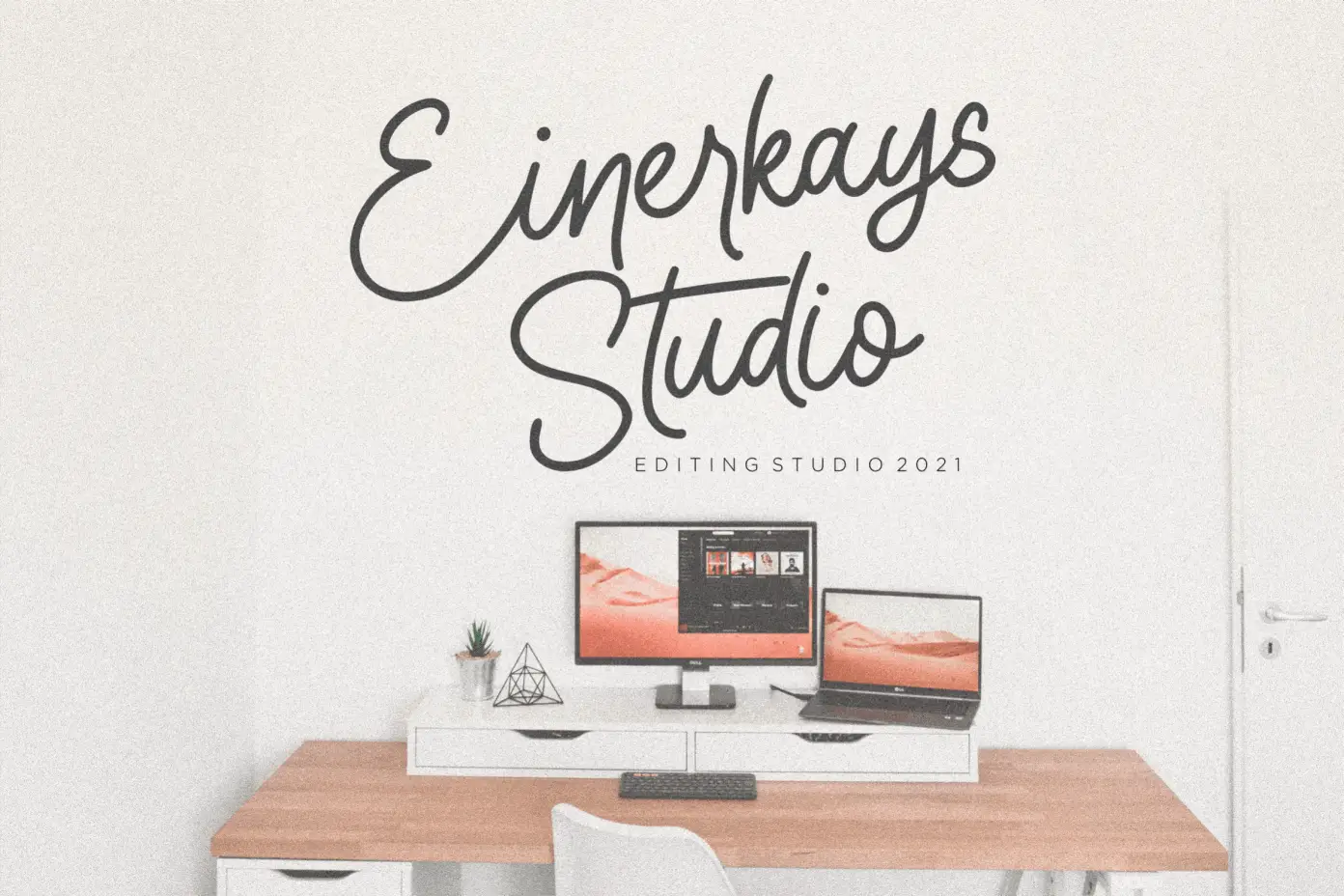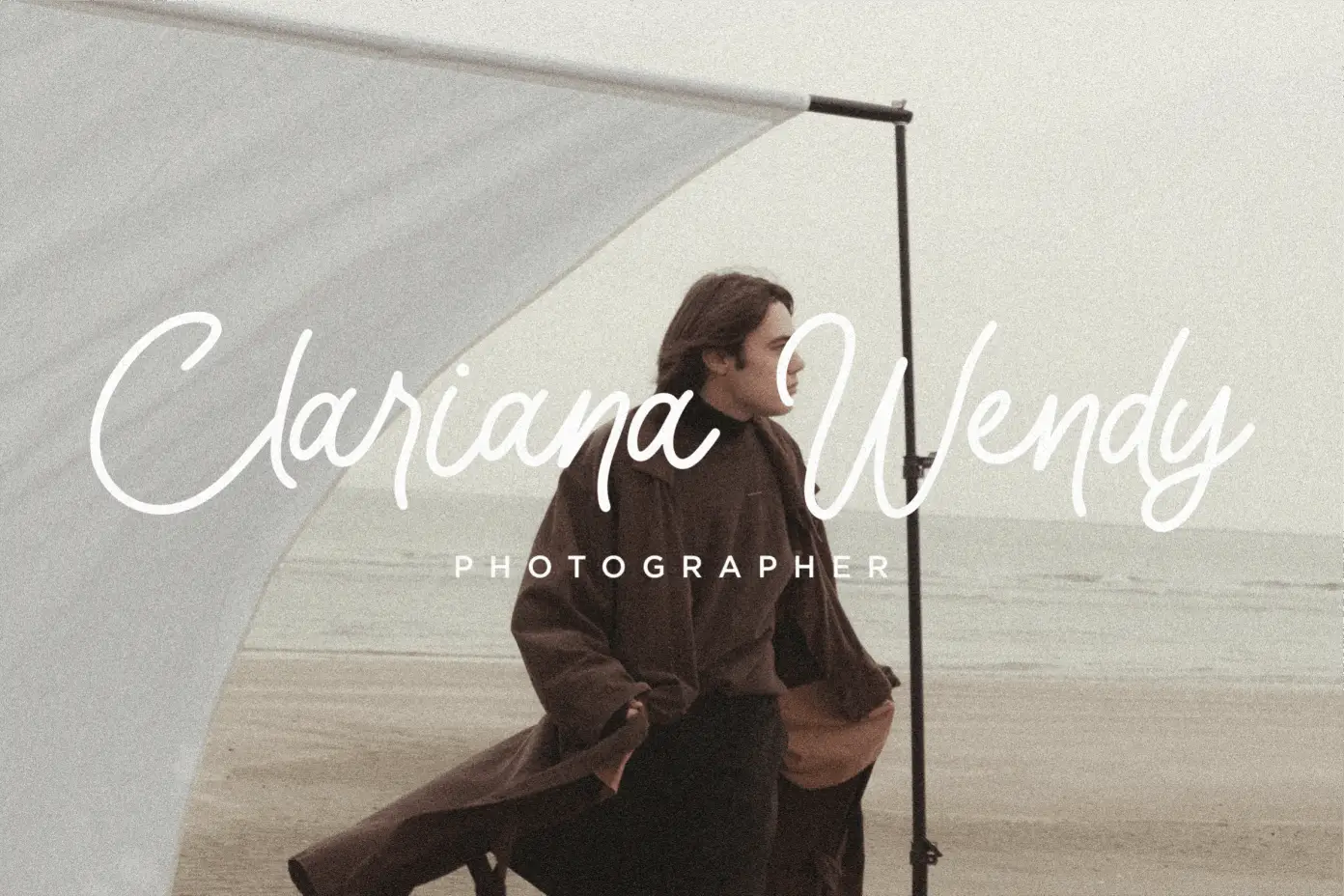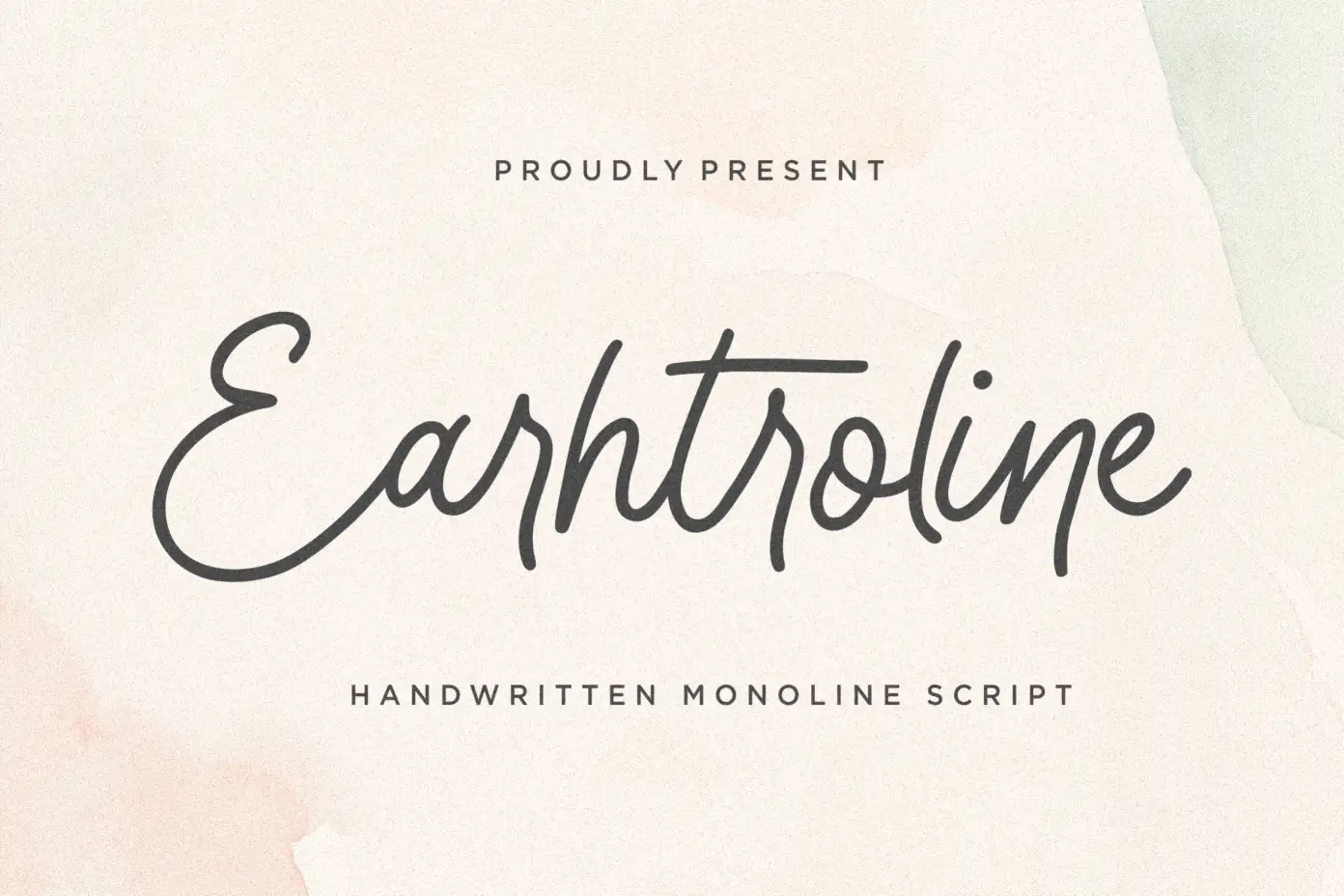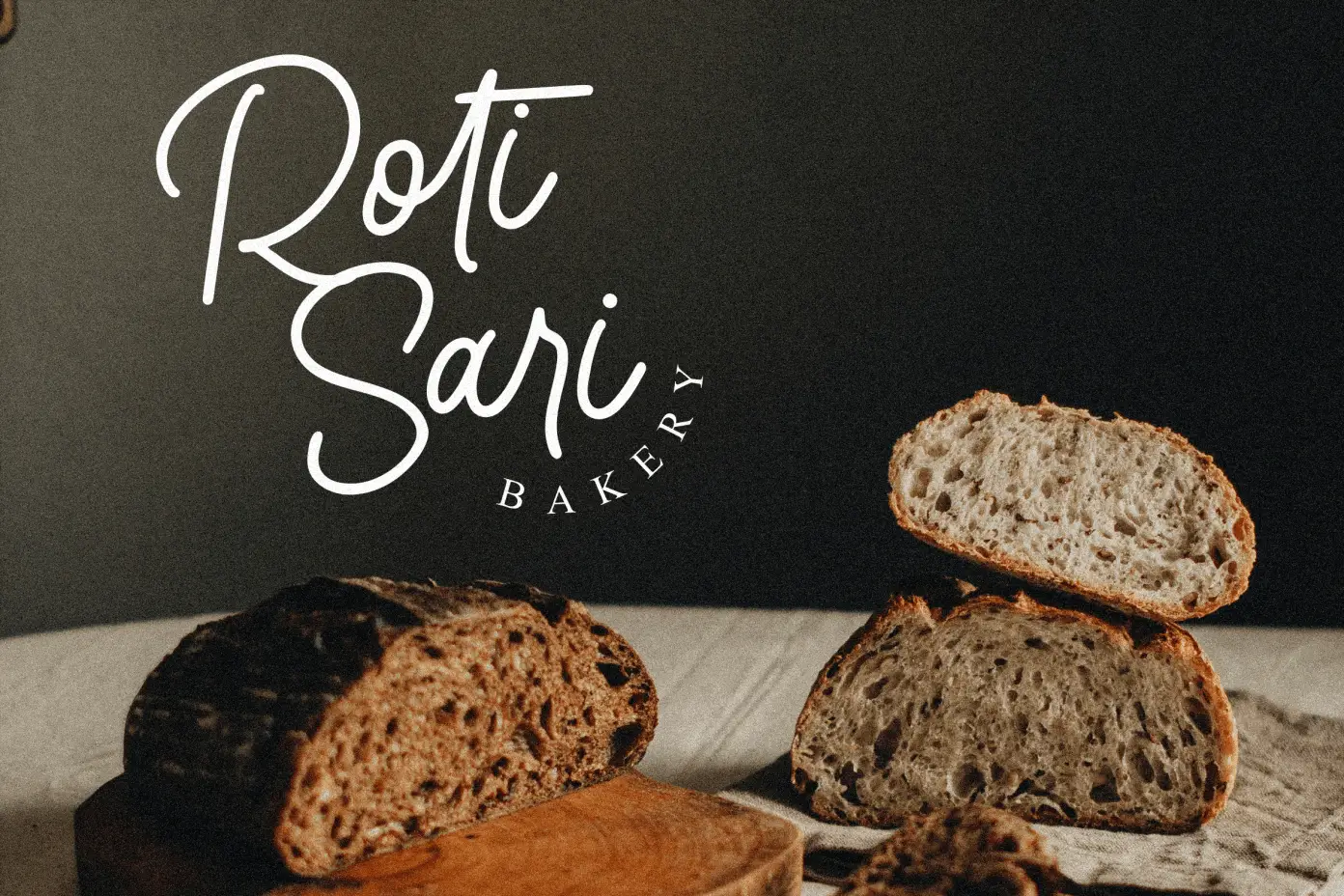
Earhtroline Script Font
Introducing the Earhtroline Script Font, a beautifully crafted typeface that brings elegance and personality to your designs. This font features a flowing script style with a variety of weights, making it perfect for various applications.
• Stylish script design
• Style: Script
This font is ideal for branding projects, logos, invitations, and any design that requires a touch of sophistication. Use it in print and digital formats to create stunning visuals.